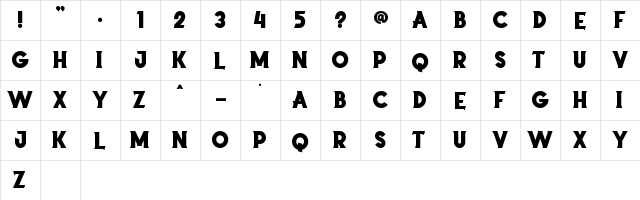
Reactive Anchor Regular
| Designer | Yugo Priyat Moko ( Holydie Studio ) |
Design Context for Reactive Anchor Typeface
Reactive Anchor is a composed and adaptable typeface that performs quietly and consistently across a wide range of design contexts.